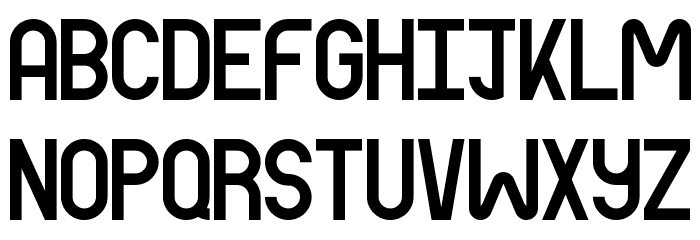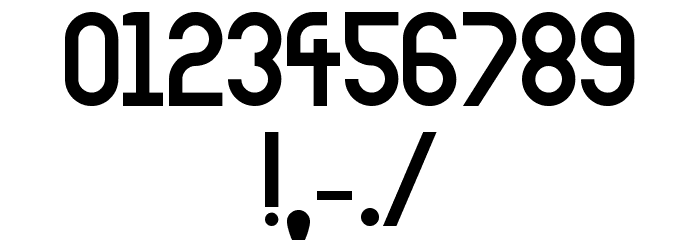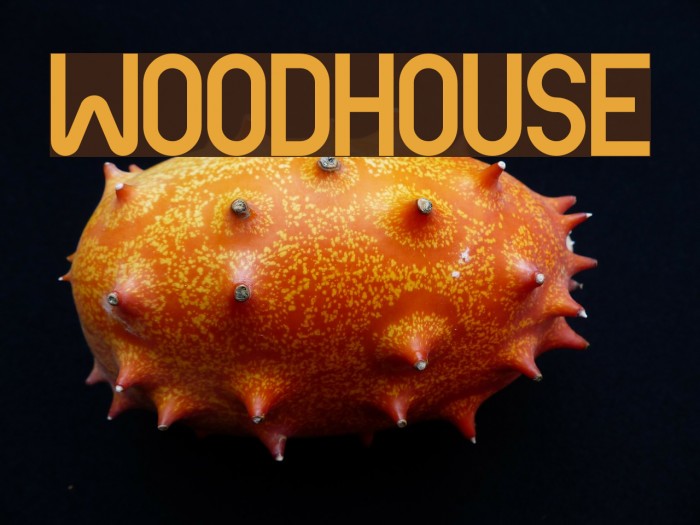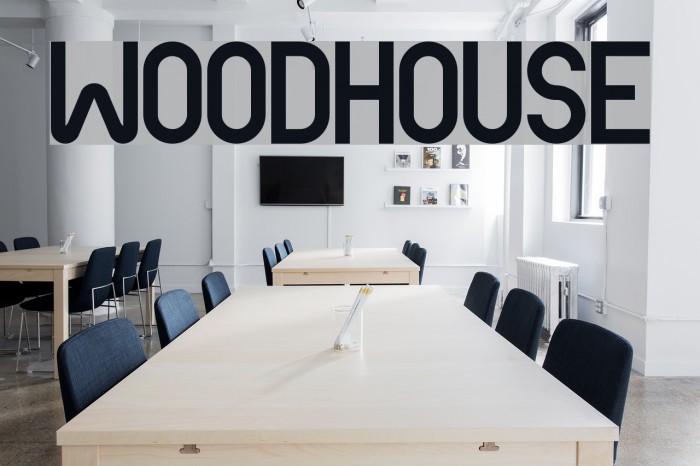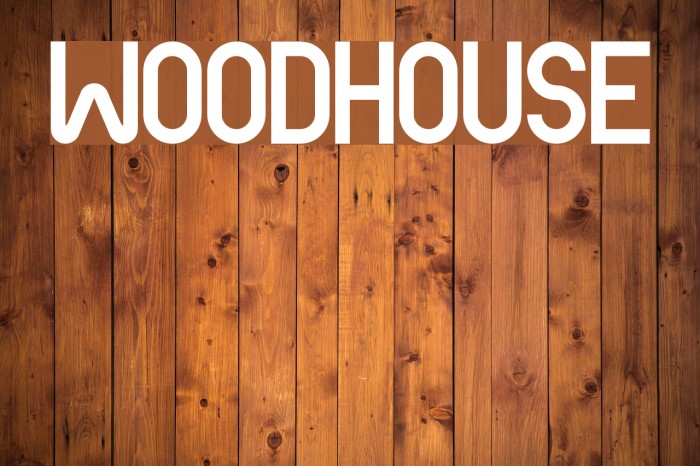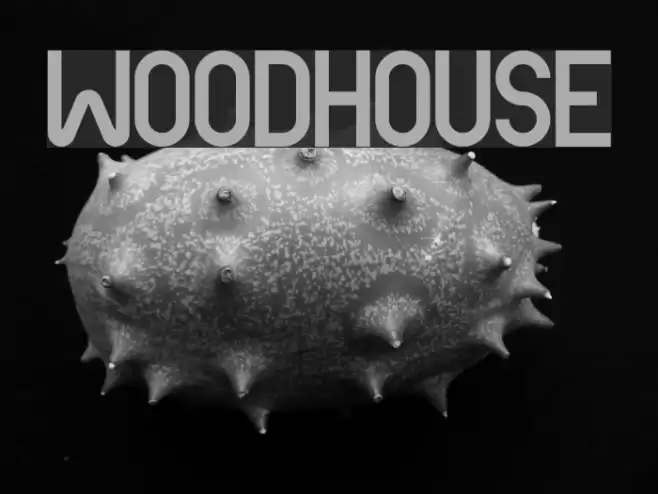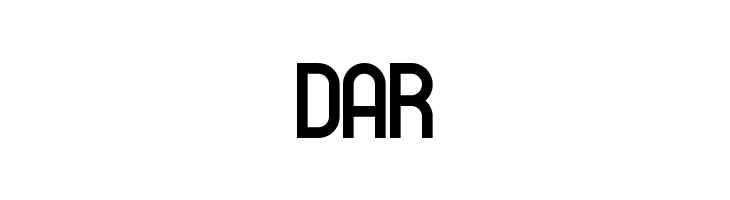
Woodhouse Font
This typeface features a bold and modern aesthetic with clean, rounded edges and a geometric structure. The uppercase letters are consistent in height, providing a uniform appearance, while the lowercase letters maintain a similar width, enhancing readability. The numbers are distinct and easy to distinguish, with a slightly playful curvature that adds character. The special characters are well-integrated, matching the overall style of the font. This font is versatile, suitable for both digital and print media, and can be used in various design contexts.
A bold, modern typeface with rounded edges and geometric structure.
- Proposed Projects: Ideal for branding, advertising, headlines, and digital interfaces.
- Use Case: Headlines, Logos, Digital interfaces